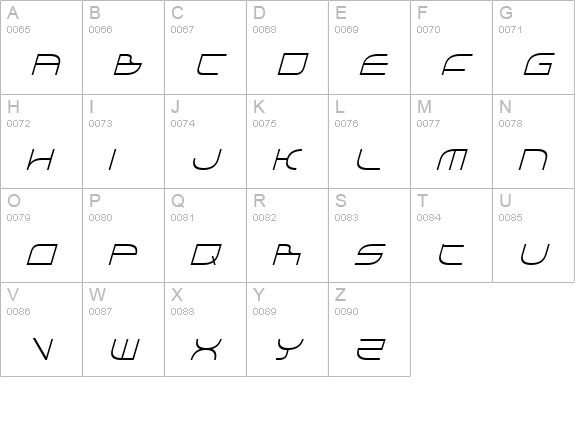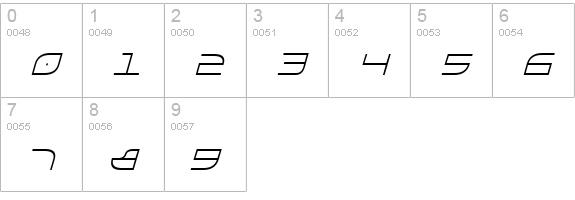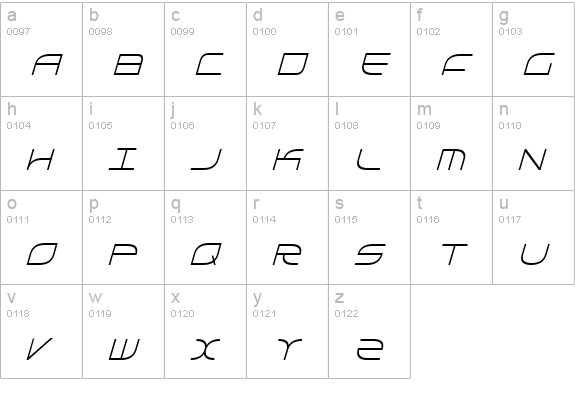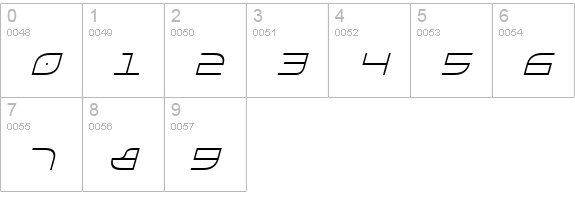
Galga Condensed Italic is a distinctive, condensed-width, italic variant in the Galga typeface family \xE2\x80\x94 well suited to design and typography projects.
Introducing Galga Condensed Italic font, a sophisticated and stylish typeface that exudes elegance and modernity. Its slender and slanted design adds a touch of flair to any text, making it perfect for projects that require a sleek and contemporary look. The italicized form of Galga Condensed lends a sense of dynamism and movement, making it ideal for conveying a sense of energy and creativity. What sets Galga Condensed Italic font apart is not only its striking aesthetic appeal, but also its versatility. Whether used for headlines, subheadings, or body text, this font maintains excellent readability while still making a bold statement. Its condensed form allows for efficient use of space, making it a practical choice for designs with limited room for text. Best of all, Galga Condensed Italic font is completely free to download at FontsMarket.com. This means you can elevate your projects with this sophisticated typeface without any cost. Don't miss out on the opportunity to add a touch of elegance and style to your designs with Galga Condensed Italic font. Download it today and see the difference it can make!